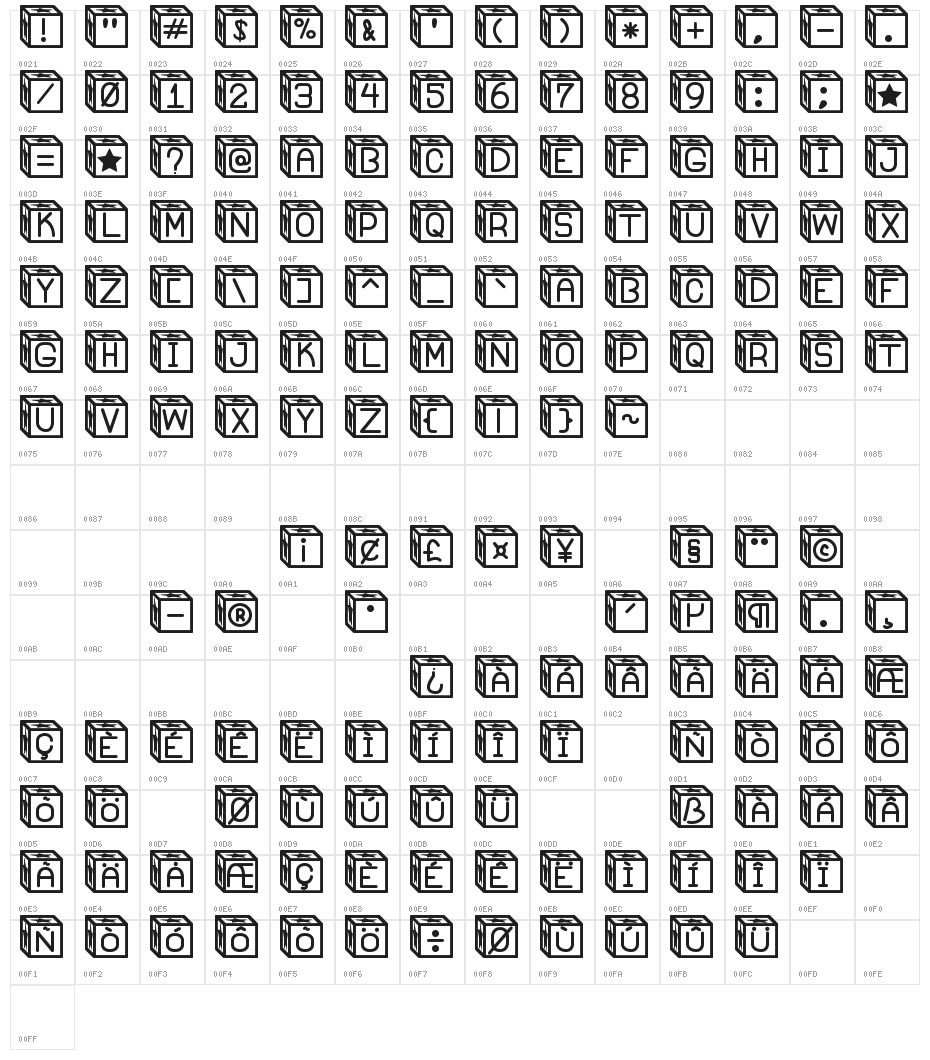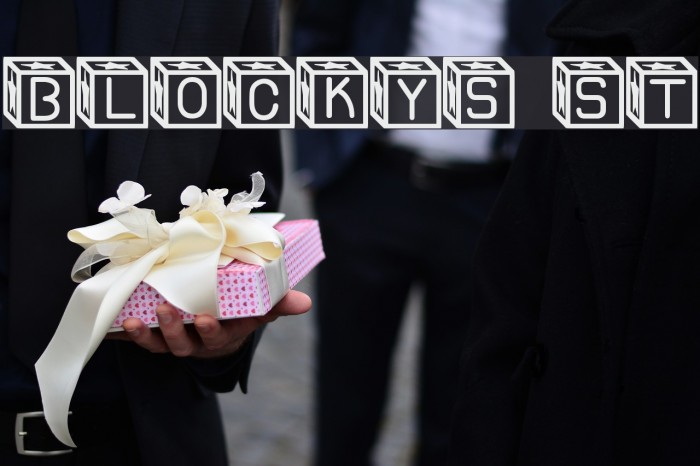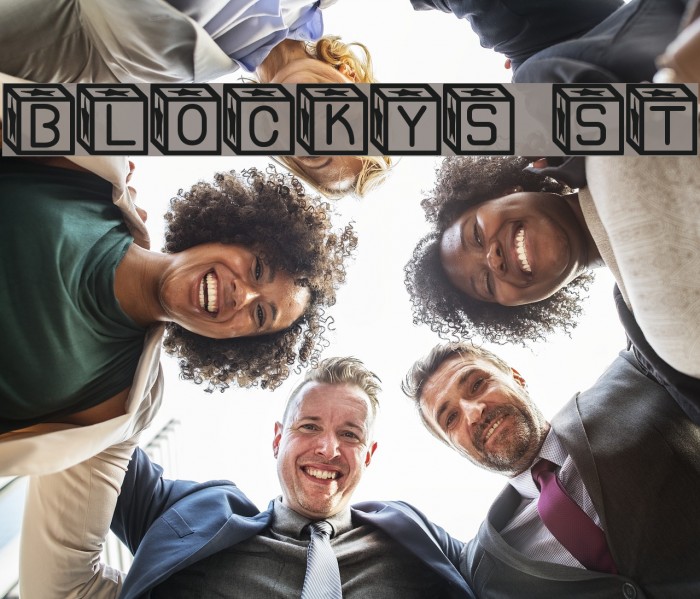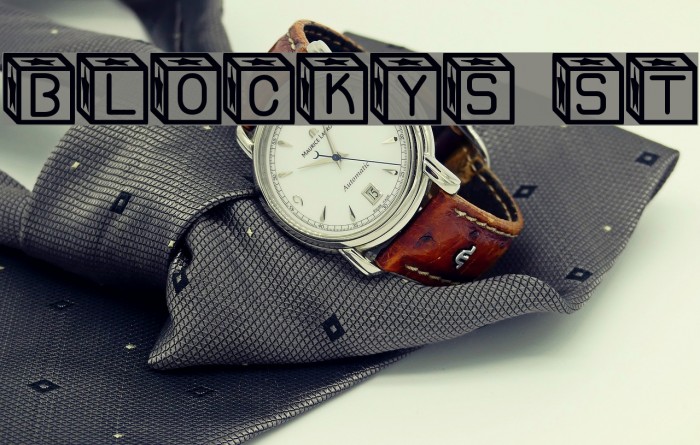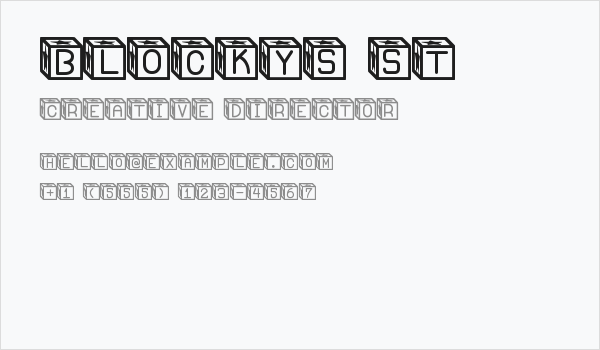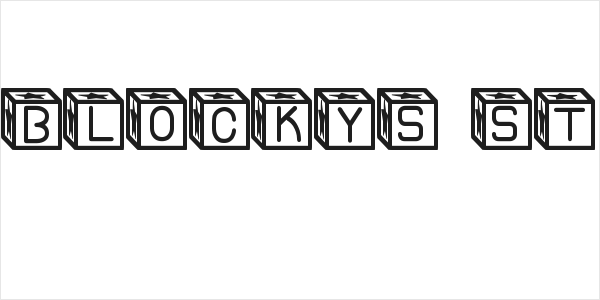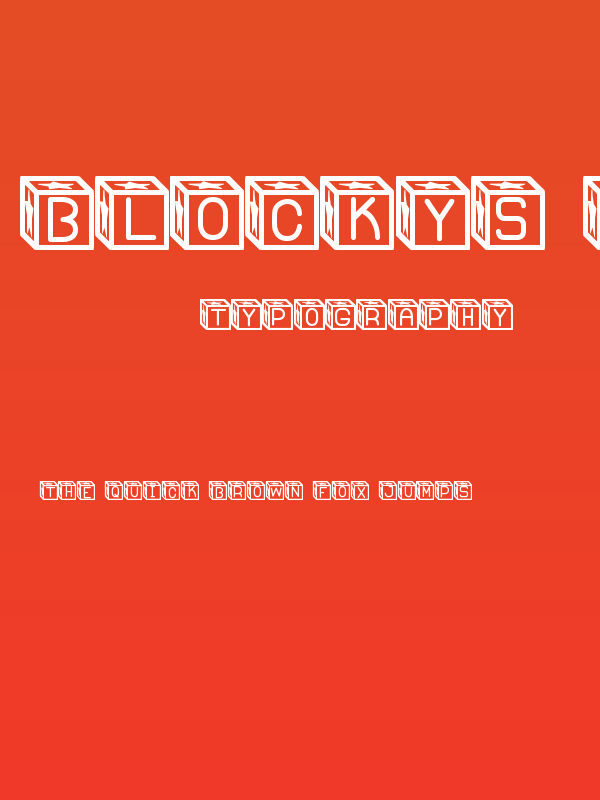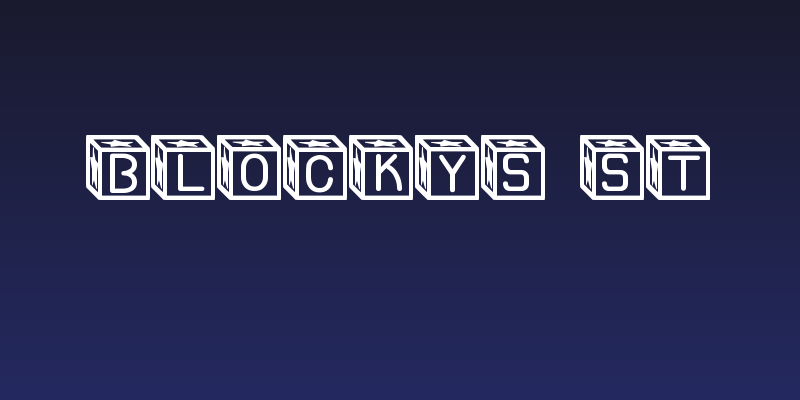
Blockys St Font
Blockys St Description
This font features a unique 3D block style where each character is encapsulated within a cube, giving it a playful and bold appearance. The letters and numbers are centered within the cubes, which have a distinct outline that enhances the three-dimensional effect. The design is consistent across uppercase, lowercase, numbers, and special characters, maintaining a uniform look. The font's geometric and structured form makes it stand out, ideal for creative and eye-catching designs. The boldness of the characters ensures readability while the cube design adds a decorative touch.
| Proposed Projects | Ideal for children's book covers, playful posters, toy packaging, and educational materials. |